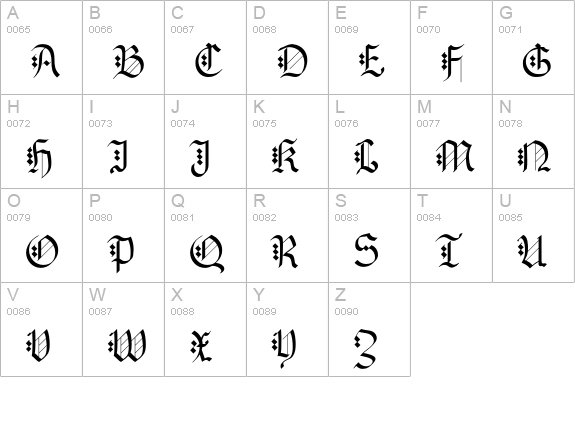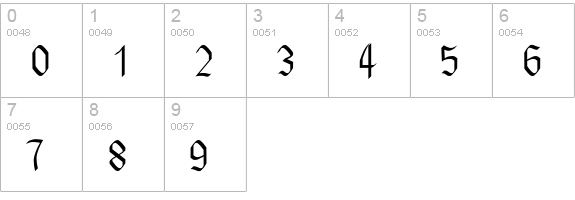
Reformator Font Details
Reformator font is an elegant and versatile typeface that is perfect for adding a touch of sophistication to any design project. With its clean lines and modern yet timeless appeal, this font is sure to make a statement. Whether used for headlines, body text, or even logos, Reformator font brings a sense of professionalism and style to any composition. What sets Reformator font apart is not only its aesthetic appeal but also its accessibility. This beautiful typeface is available for free download at FontsMarket.com. This means that designers, creatives, and anyone looking to elevate their work can easily access and use this font without any cost. With just a few clicks, you can bring the elegance of Reformator font to your designs. The versatility of Reformator font is another standout feature. Its legibility makes it suitable for a wide range of design applications, from print materials like brochures and posters to digital platforms such as websites and social media graphics. Whether you're a professional designer or someone with a passion for creating visually stunning content, this font is a valuable addition to your toolkit. Reformator font's extensive character set includes uppercase and lowercase letters, numerals, punctuation marks, and special characters, providing you with all the tools you need to bring your creative visions to life. Its carefully crafted letterforms ensure smooth readability and visual harmony, making it a pleasure to work with. In conclusion, Reformator font is a free and versatile typeface that combines elegance with accessibility. Its timeless appeal and wide range of applications make it a must-have for designers and creatives alike. Download this beautiful font at FontsMarket.com and take your designs to the next level.